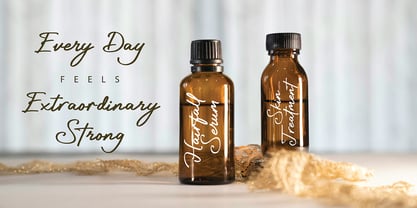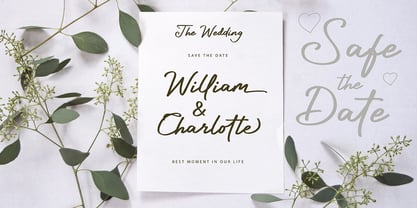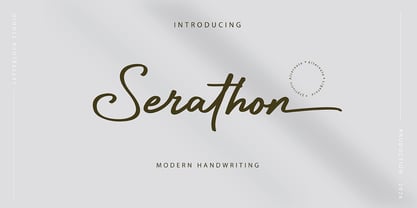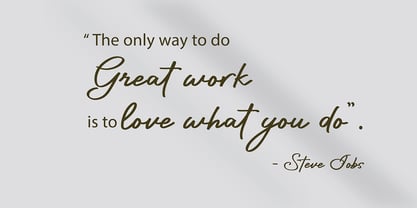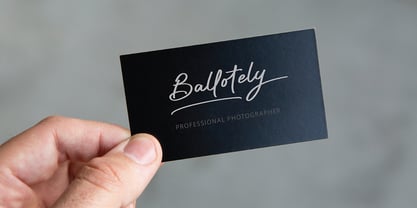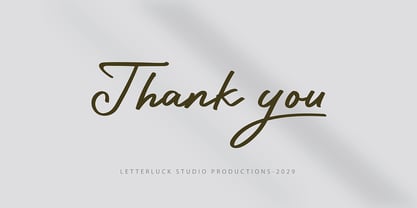
Serathon
von Letterluck
Die Schriftfamilie Serathon wurde von Bayu Tri Ratman entworfen und von Letterluck veröffentlicht. Serathon enthält 1 Stile. Mehr über diese Familie
Sheraton is handwriting modern script creating a soft curve and simple look that feels calm, natural, and beautifully imperfect. It suitable for signature logo, branding and other your promotion tools. It suitable for signature logo, branding and other your promotion tools.
Designer: Bayu Tri Ratman
Foundry: Letterluck